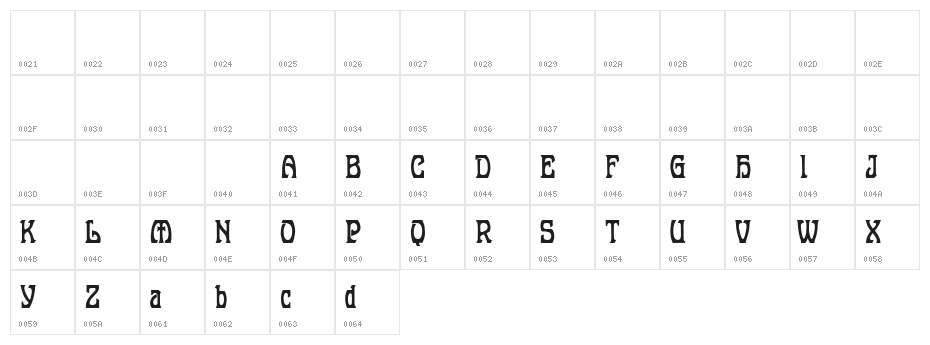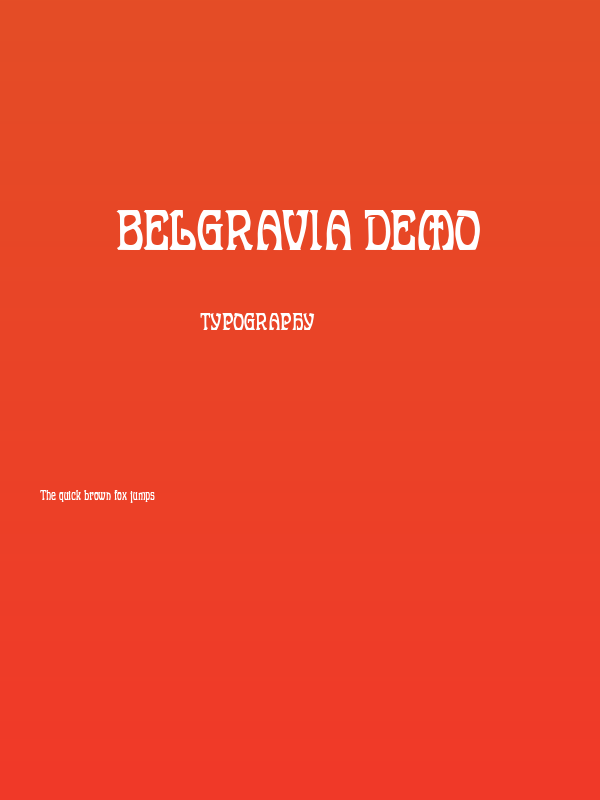
Belgravia Demo Font
Belgravia Demo Description
This font features a bold and distinctive style with a strong presence. Its characters are designed with a unique blend of sharp angles and smooth curves, creating a striking visual impact. The uppercase letters are particularly prominent, with a slightly condensed form that adds to their commanding appearance. The lowercase letters maintain a consistent style, offering a harmonious balance with the uppercase set. The numbers and special characters are crafted to match the overall aesthetic, ensuring a cohesive look across all text elements. This font's design is reminiscent of traditional blackletter styles, yet it incorporates modern elements that make it versatile for contemporary use.
| Proposed Projects | Ideal for branding, poster design, book covers, and any project requiring a bold, eye-catching typeface. |